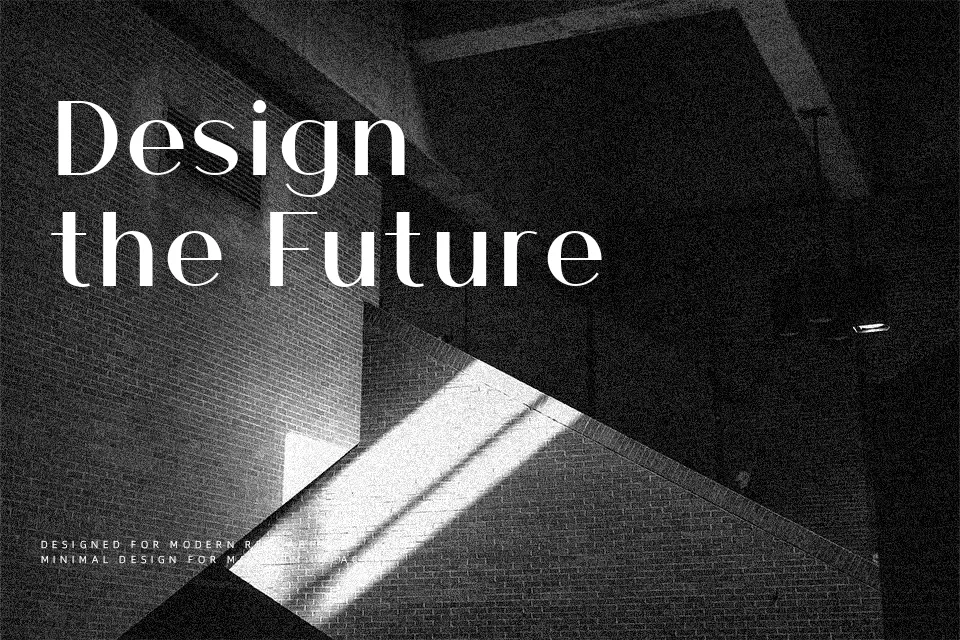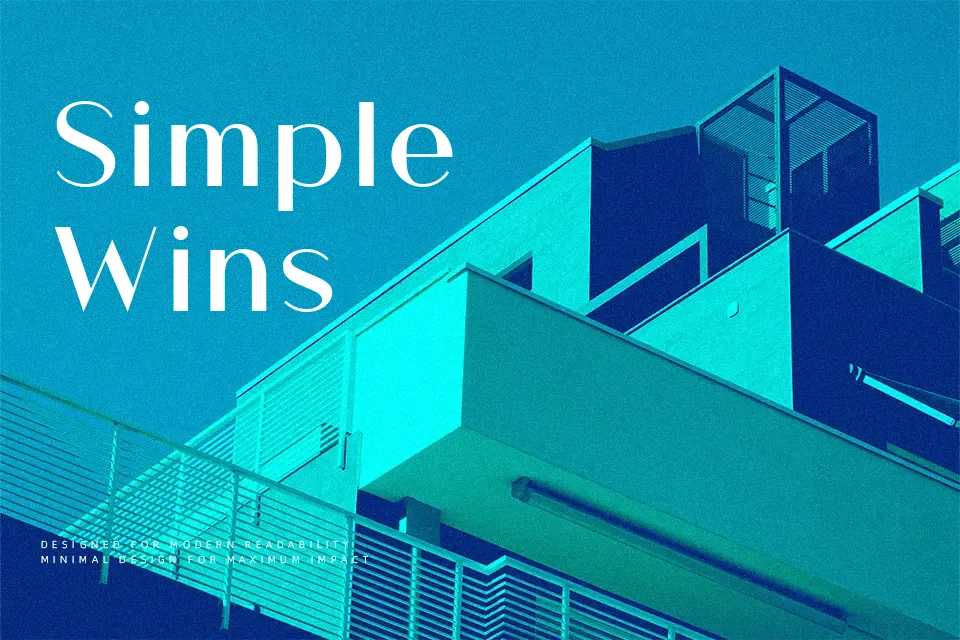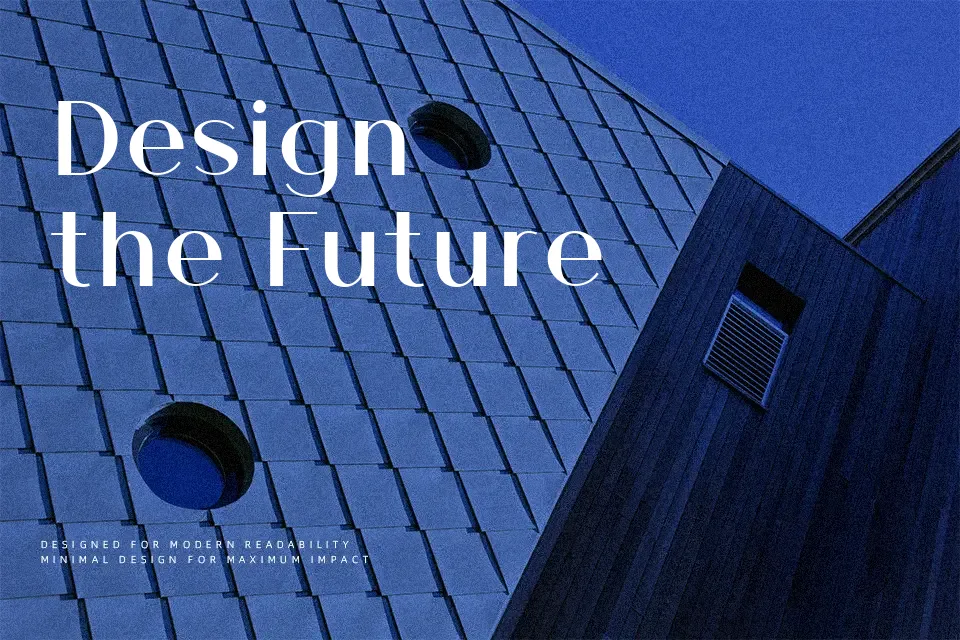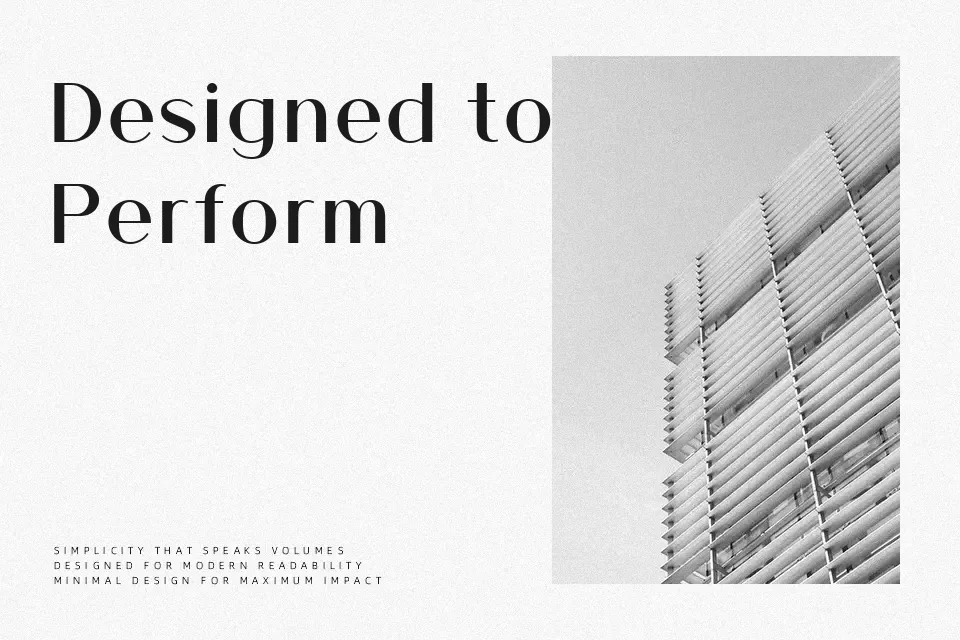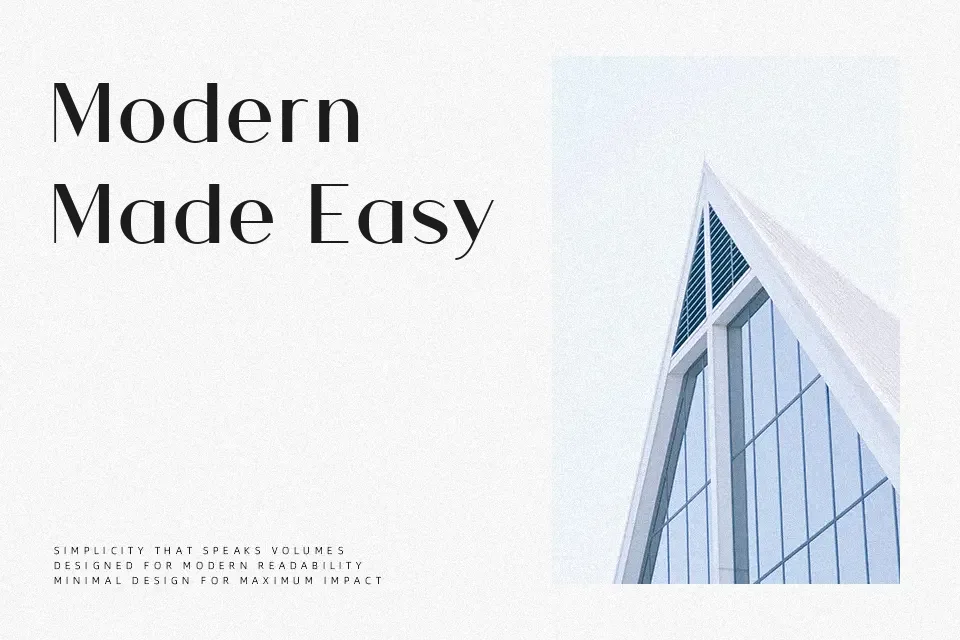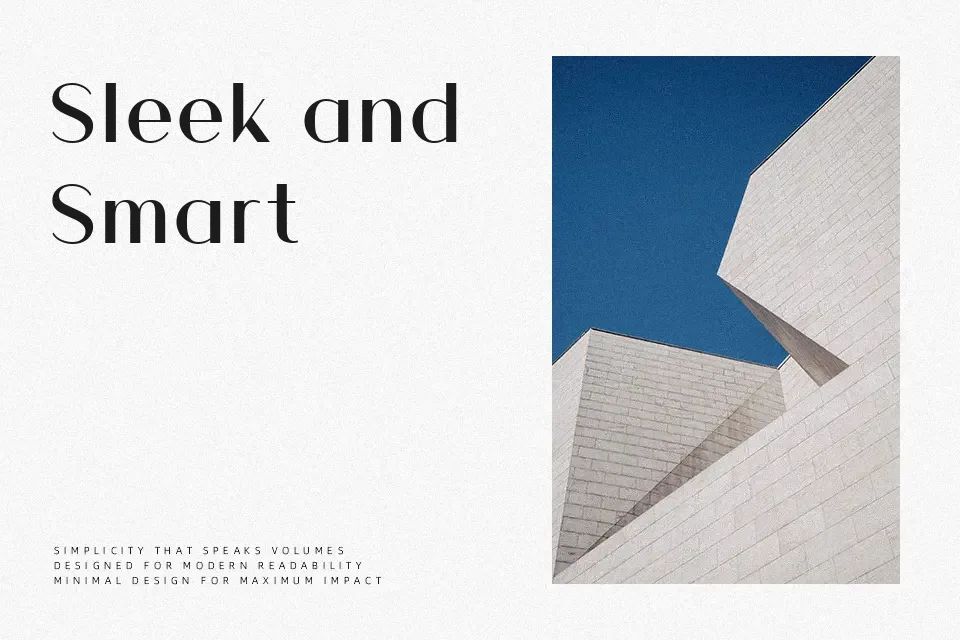
Athena Font
Designed by Ellen Luff
Thick strokes collide with near-hairline curves in Athena, creating a tension that feels more editorial than decorative. Rooted in Didone tradition but stripped of serifs, it carries the drama of classical high-contrast type with a clean, contemporary posture. Spacing is open and confident, giving headlines room to breathe — something that works especially well on fashion lookbooks, poster titles, or upscale event materials. Where it stumbles is in body copy: the extreme contrast between thick and thin strokes breaks down quickly at small sizes, making it a poor fit for dense paragraph text or anything under 18pt. Best used sparingly and large — when restraint in layout lets the letterforms do the work.
Best For:- fashion magazine headline layouts
– luxury brand identity and packaging headers
– film poster and event title design
– high-end wedding stationery display text
Not Ideal For:- body copy or continuous reading at small sizes
– corporate reports and formal documents
– UI labels and app interface text
– low-resolution or small-format printing
Perfect for branding, editorial, and fashion, with a dramatic and display style.